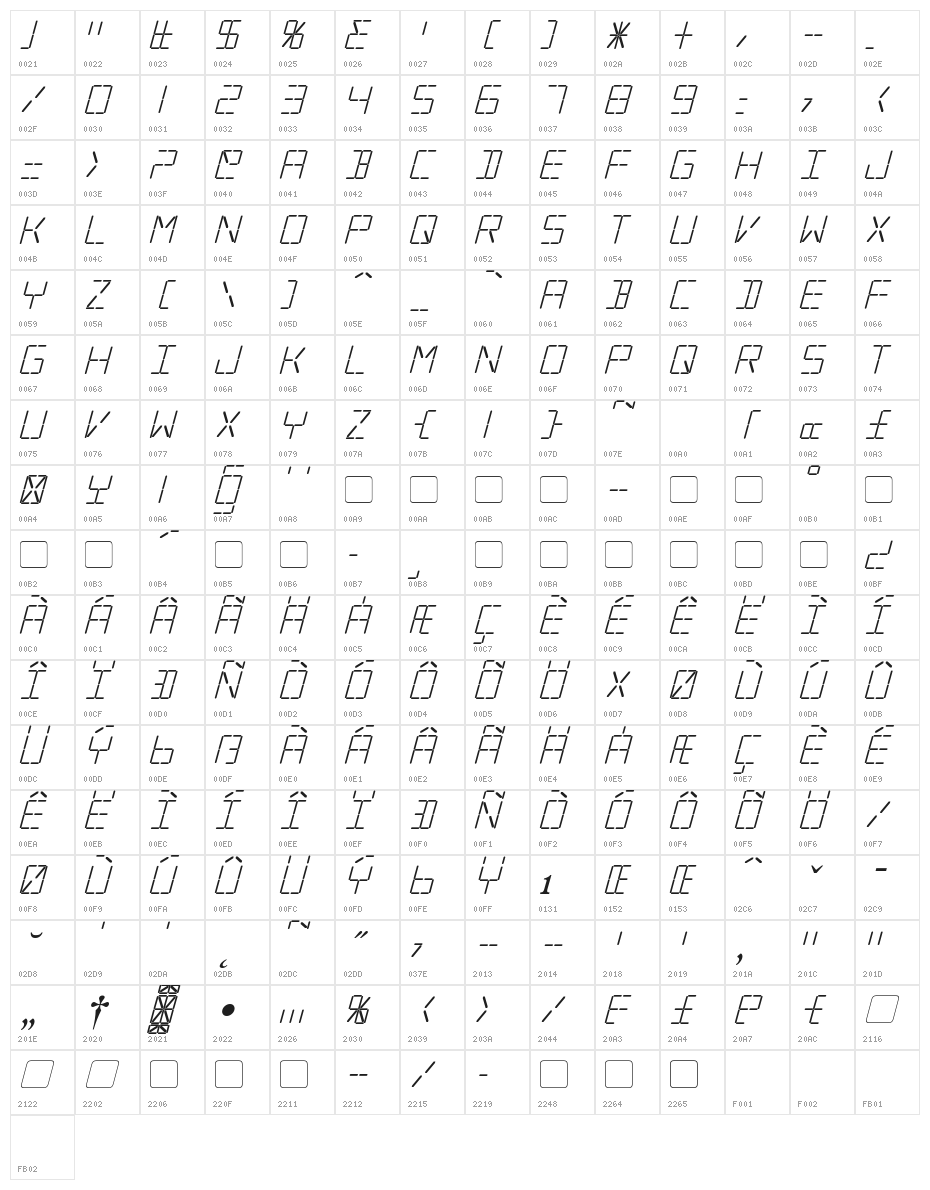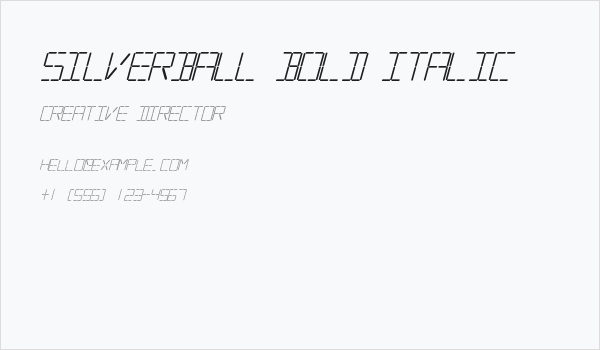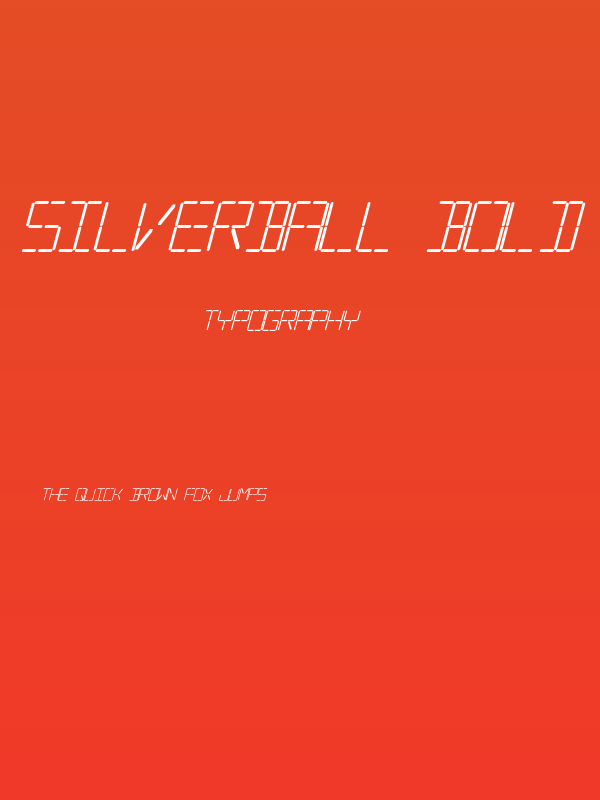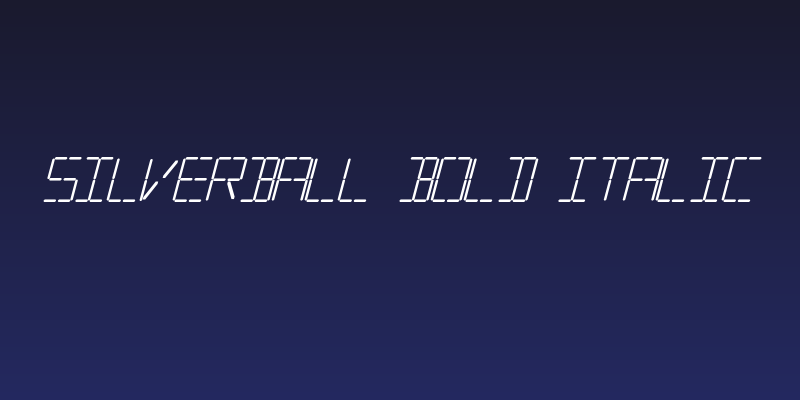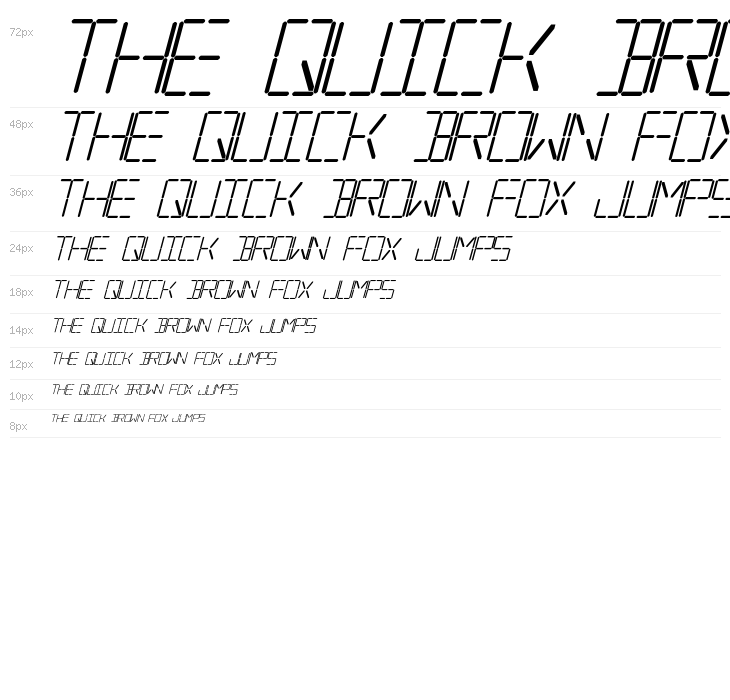
Silverball Bold Italic Font
Silverball Bold Italic Description
This font features a futuristic and geometric design, characterized by its bold and italicized style. The letters are constructed with a series of straight lines and angles, giving it a digital, almost stencil-like appearance. The uppercase and lowercase letters maintain a consistent height, with a slight slant that adds a dynamic feel. The numbers and special characters follow the same design principles, ensuring uniformity across all glyphs. This font's unique structure makes it stand out, ideal for projects that require a modern and tech-savvy aesthetic.
| Proposed Projects | Ideal for technology branding, digital interfaces, video game design, and modern advertising. |